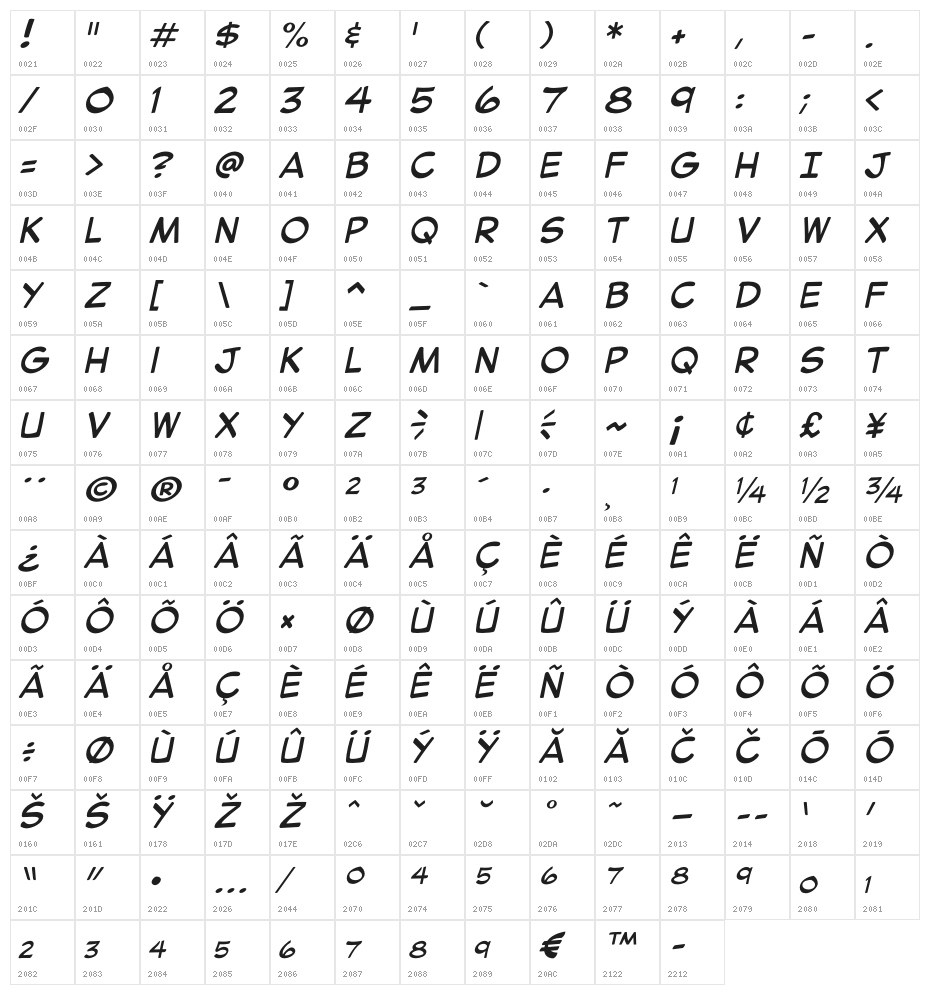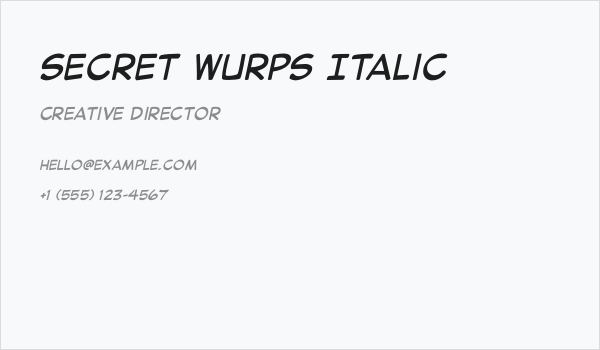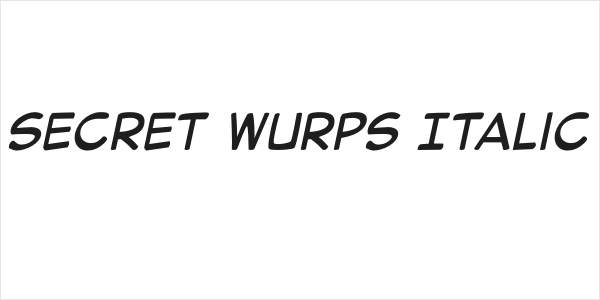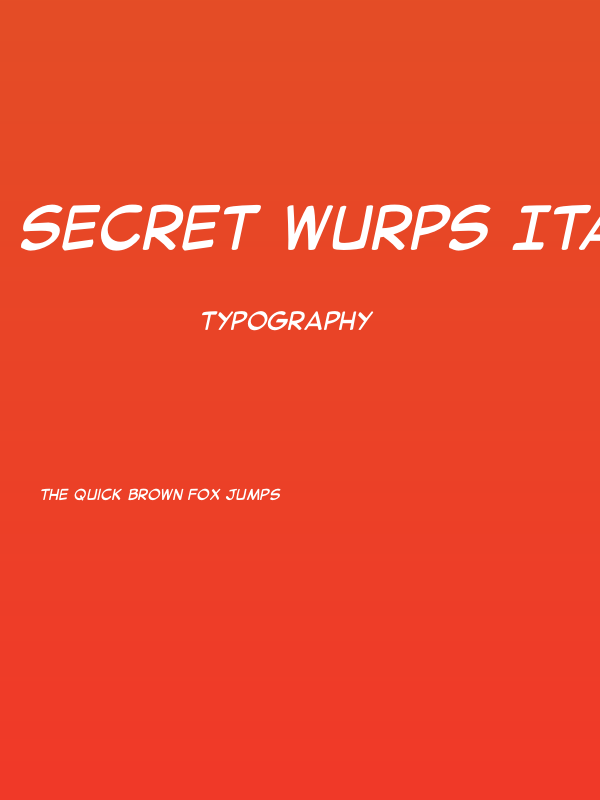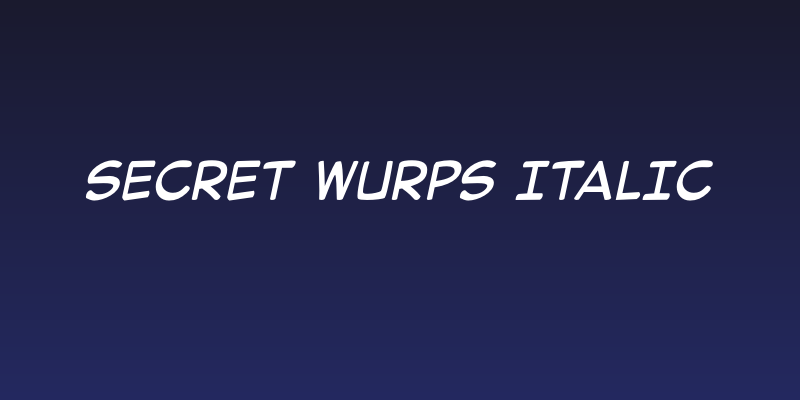
Secret Wurps Italic Font
Secret Wurps Italic Description
This font exhibits a playful and dynamic style with a distinct italic slant, giving it a sense of motion and energy. The characters are bold and rounded, with a smooth flow that enhances readability while maintaining a casual and informal appearance. The uppercase and lowercase letters are well-balanced, and the numerals are clear and consistent. Special characters are included, adding versatility for various design needs. The overall design is cohesive, making it suitable for projects that require a lively and engaging typeface.
| Proposed Projects | Ideal for children's books, playful branding, casual invitations, and creative posters. |